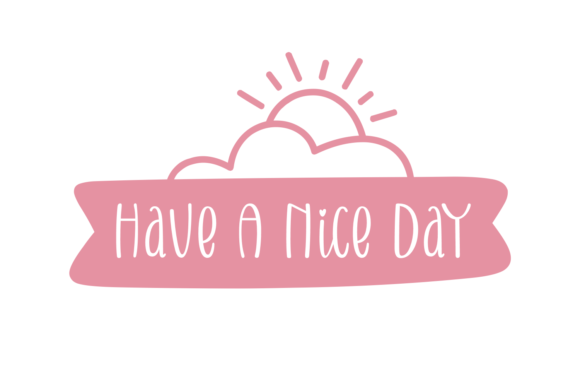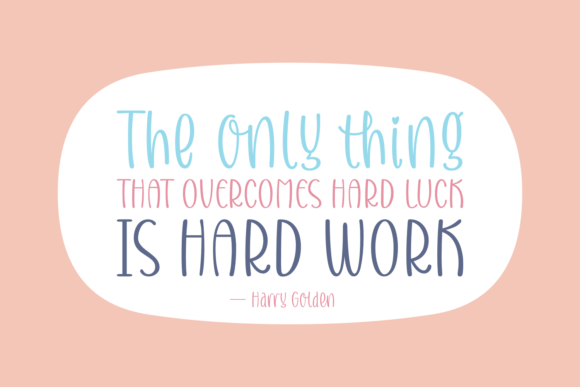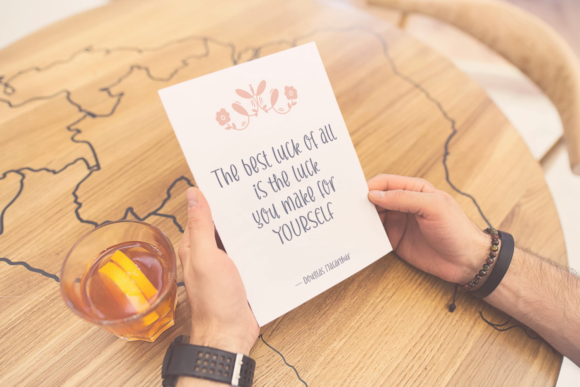
Getting Inspired by the Daily Browsing Font
Do you remember that moment when you stumbled upon the perfect font, and it completely changed the direction of your creative project? For designers, finding the right font can be a game-changer, and the Daily Browsing Font is one such discovery that’s sure to spark your imagination.
With its charming and elegant twist, the Daily Browsing Font is an exceptional design resource that’s perfect for adding a personal touch to your high-quality creative projects. Whether you’re working on a blog post, social media graphic, or a marketing campaign, this font is sure to elevate your design to the next level.
Key Features of Daily Browsing Font
- Unique design with a transparent background, allowing for easy layering and customization in design projects.
- Includes a range of characters, including uppercase and lowercase letters, numbers, and punctuation marks, making it a versatile design resource.
- Perfect for use in a variety of creative projects, including graphics, logos, and digital art, thanks to its modern and sleek design.
Honest Review: Daily Browsing Font
I recently had the chance to explore the Daily Browsing Font, and I must say, it’s a great addition to any designer’s toolkit. ✨ One of the standout features of this font is its versatility – it works well for both digital and print projects, making it a high-quality design resource for creative endeavors.
The font is available for free download, which is a huge plus for designers on a budget or those looking for a convenient design resource. The font’s design is clean and modern, with a transparent background that allows for seamless integration with various backgrounds.
- May not be suitable for extremely formal or traditional projects
- Could be improved with additional font styles or weights
Overall, I’m impressed with the Daily Browsing Font. While it may have some limitations, its strengths far outweigh its weaknesses, making it a valuable design resource for any creative project.
Tips for Getting the Most Out of Daily Browsing Font
Experiment with different font sizes, colors, and styles to add depth and visual interest to your design. Use the font in combination with other design elements to create a cohesive and engaging visual identity.
The Daily Browsing Font is ideal for use in social media graphics, blog posts, and presentations. Its modern and clean design makes it perfect for a wide range of creative projects, from marketing materials to educational content.
Comparison to Daily Browsing Font: While both fonts are modern and clean, Open Sans has a more neutral tone and is more suitable for a wide range of design projects. Daily Browsing Font has a more casual and playful feel, making it better suited for creative projects with a more relaxed tone.